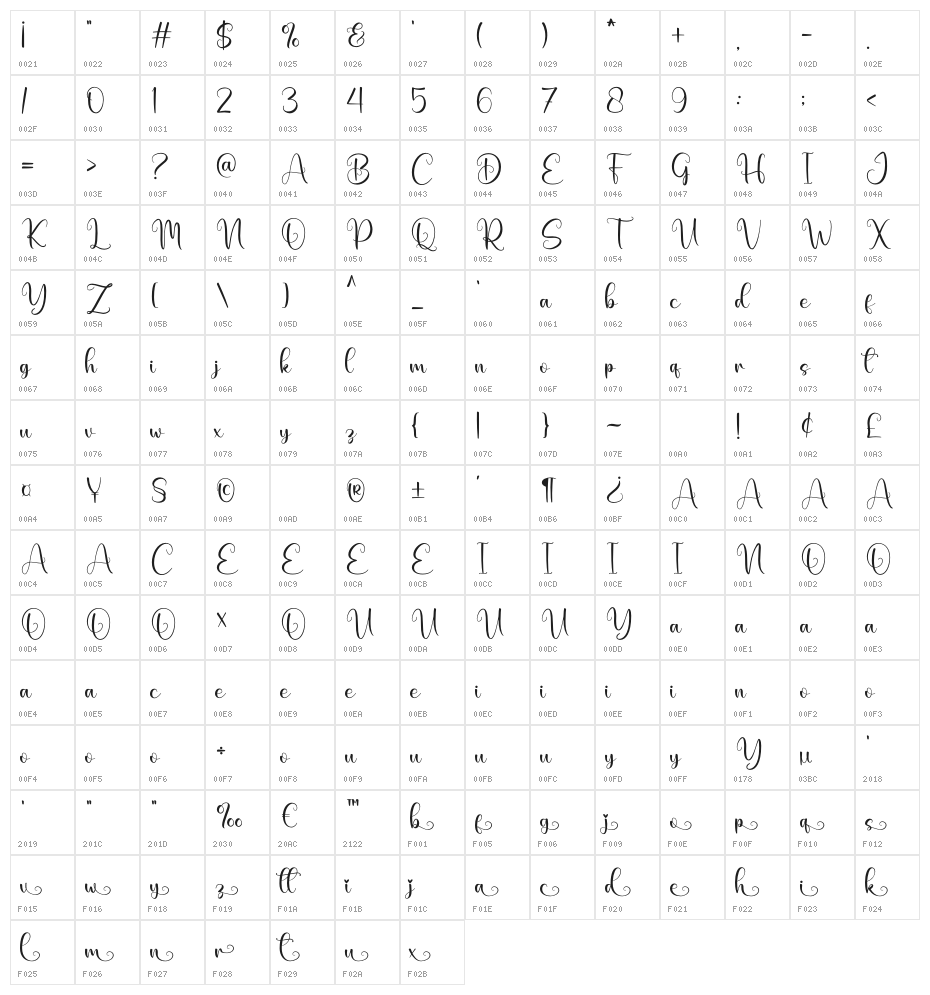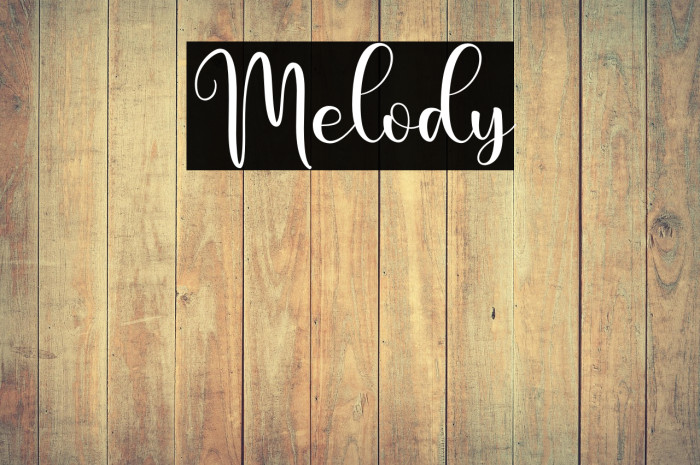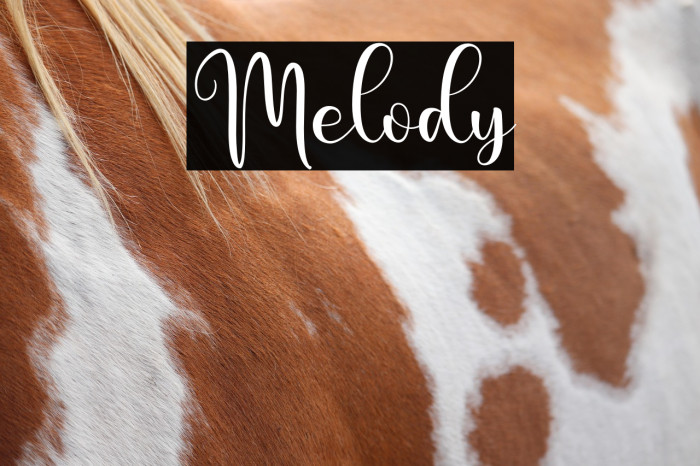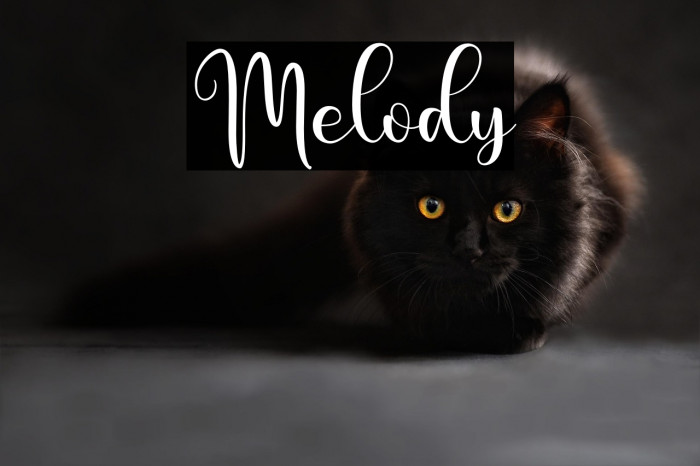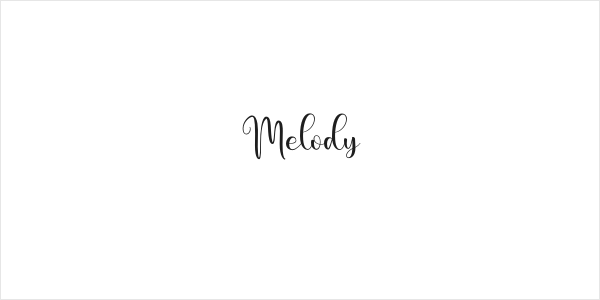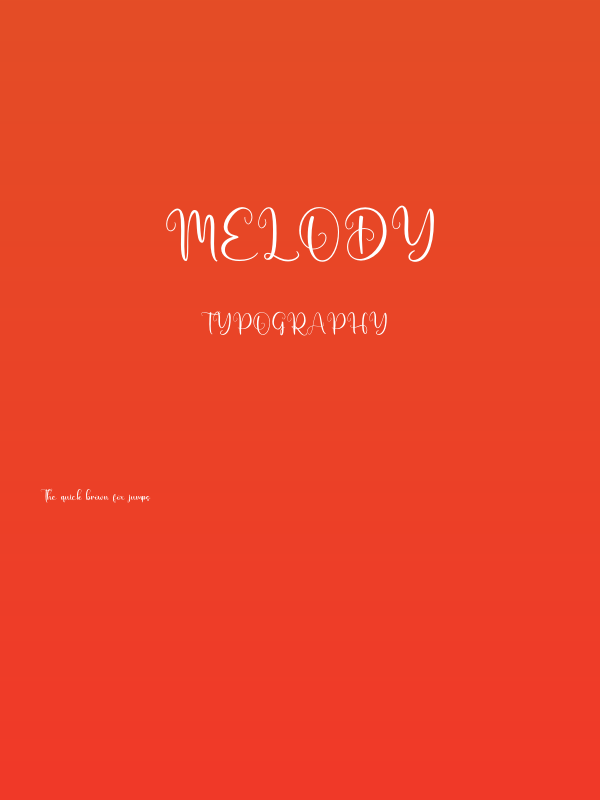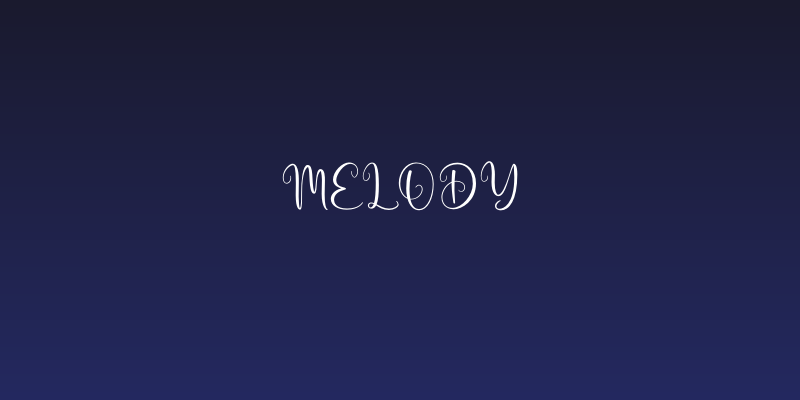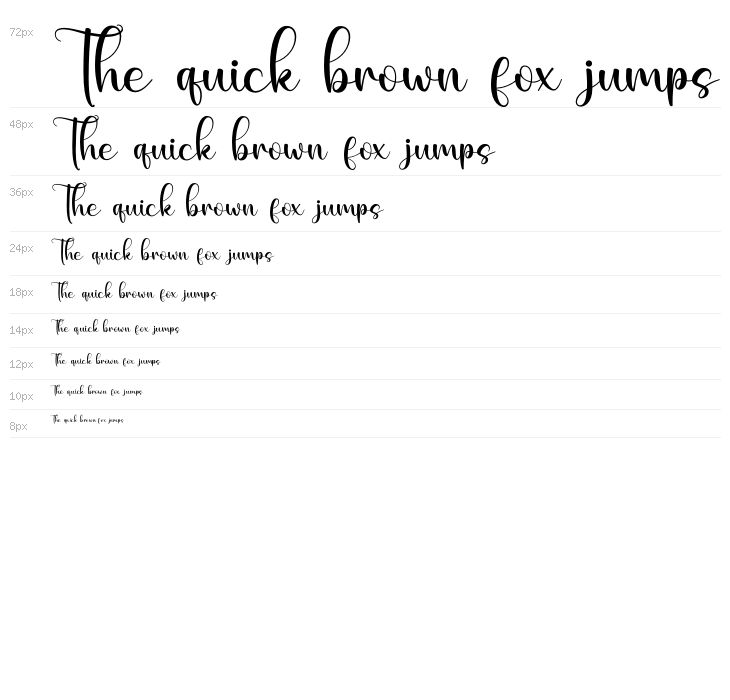
Melody Font
Melody Description
A decorative script font with elegant, flowing lines and a handwritten style, featuring loops and swashes.
Use CaseLogos, Invitations, Decorative text
Proposed ProjectsInvitations, greeting cards, logos, branding.